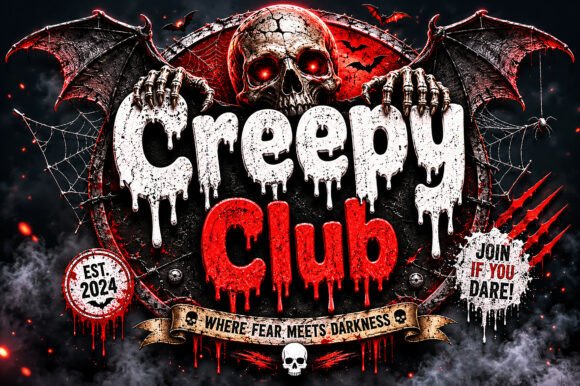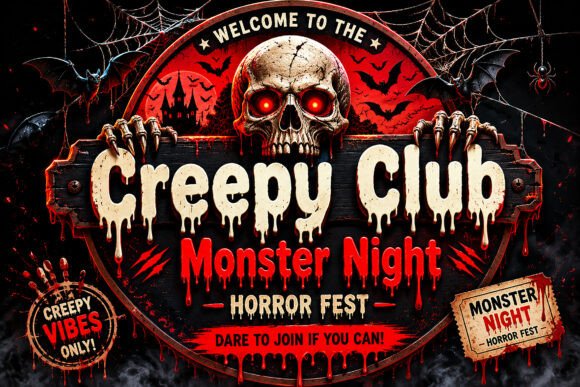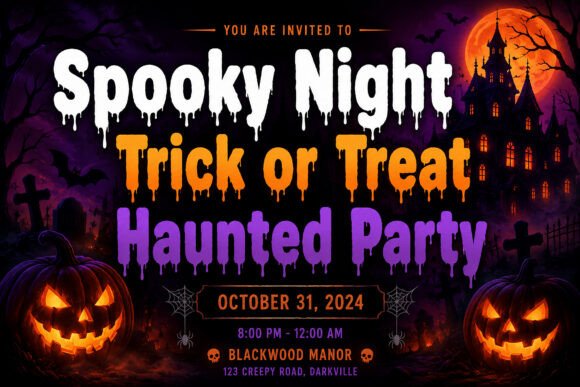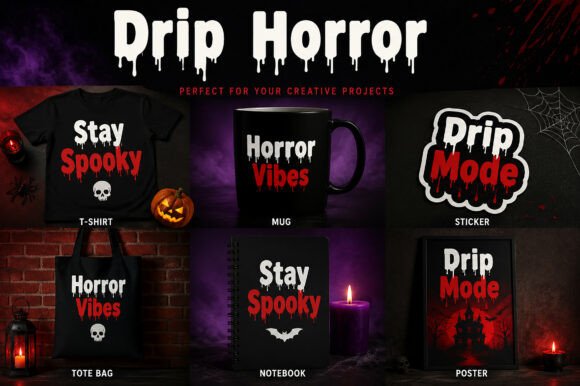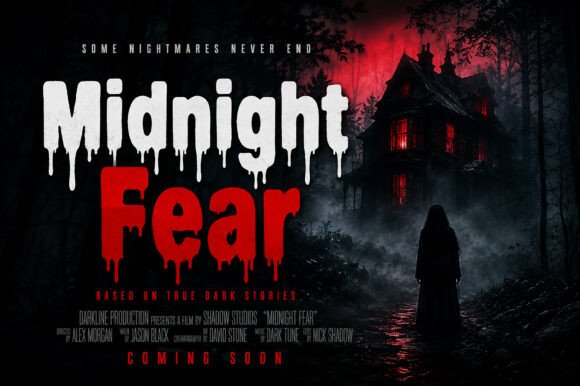
Unleash the Terror with Drip Horror Font: The Ultimate Choice for Spooky Designs
Are you looking for a font that can add a chilling touch to your creative projects? Look no further than the Drip Horror Font, a bold and terrifying horror display font that is sure to capture attention instantly. Inspired by classic Halloween aesthetics, horror movies, haunted houses, and creepy storytelling, this font brings a unique dripping effect that is perfect for creating spooky and unforgettable designs.
The Inspiration Behind Drip Horror Font
The Drip Horror Font is designed to evoke the eerie and haunting atmosphere of Halloween and horror movies. The font’s unique dripping effect is inspired by the blood-curdling screams, creepy crawlies, and haunted mansions that are synonymous with the holiday. The font’s creator aimed to capture the essence of horror and bring it to life in a way that would make designers and crafters go wild.
Key Features of Drip Horror Font
- Bold and Terrifying: The Drip Horror Font is a bold and attention-grabbing font that is sure to make a statement in any design.
- Unique Dripping Effect: The font features a unique dripping effect that gives it a blood-like appearance, making it perfect for horror-themed designs.
- Strong Readability: Despite its bold and dramatic appearance, the Drip Horror Font has strong readability, making it easy to read and understand.
- Versatile: The font is versatile and can be used for a wide range of creative projects, from Halloween-themed designs to horror movie titles and more.
Perfect for a Wide Range of Creative Projects
The Drip Horror Font is perfect for designers and crafters who want to add a touch of horror to their creative projects. Here are some ideas for projects that can benefit from this font:
- Halloween-themed Designs: Use the Drip Horror Font to create spooky and eye-catching designs for Halloween-themed parties, events, and promotions.
- Horror Movie Titles: Add a chilling touch to your horror movie titles and posters with the Drip Horror Font.
- Spooky Posters: Create eye-catching posters for haunted houses, horror events, and spooky exhibitions with the Drip Horror Font.
- YouTube Thumbnails: Use the font to create attention-grabbing thumbnails for horror-themed YouTube videos and channels.
- Gaming Graphics: Add a touch of horror to your gaming graphics, including posters, flyers, and social media posts.
- Party Invitations: Create spooky and inviting party invitations with the Drip Horror Font.
- Book Covers: Use the font to create eye-catching book covers for horror novels and short stories.
- Merchandise: Create spooky and eye-catching merchandise, including stickers, apparel, and accessories, with the Drip Horror Font.
- Branding Projects: Use the font to create a bold and terrifying brand identity for horror-themed businesses and events.
Tips for Using Drip Horror Font
Here are some tips for using the Drip Horror Font in your creative projects:
- Experiment with Colors: The Drip Horror Font looks great in bold and bright colors, but you can also experiment with different shades and textures to create a unique look.
- Combine with Images: Combine the font with spooky images and graphics to create a chilling and eye-catching design.
- Play with Layouts: Experiment with different layouts and arrangements to create a unique and eye-catching design.
- Use in Combination with Other Fonts: Use the Drip Horror Font in combination with other fonts to create a bold and contrasting look.
| Font Name | Drip Horror Font |
| Author | Bundle |
The Drip Horror Font is a bold and terrifying horror display font that is perfect for designers and crafters who want to add a touch of horror to their creative projects. With its unique dripping effect, strong readability, and versatility, this font is sure to capture attention instantly and leave a lasting impression. Whether you’re designing a Halloween-themed party invitation or a horror movie title, the Drip Horror Font is the perfect choice for creating spooky and unforgettable designs.